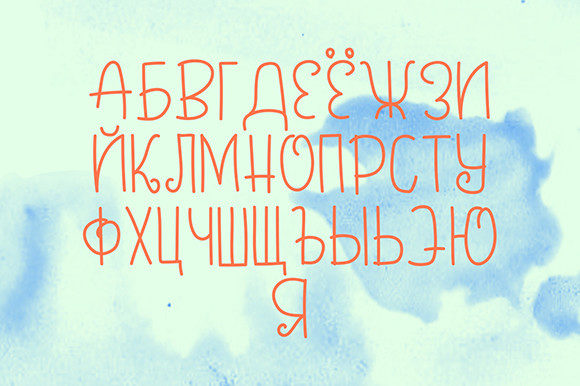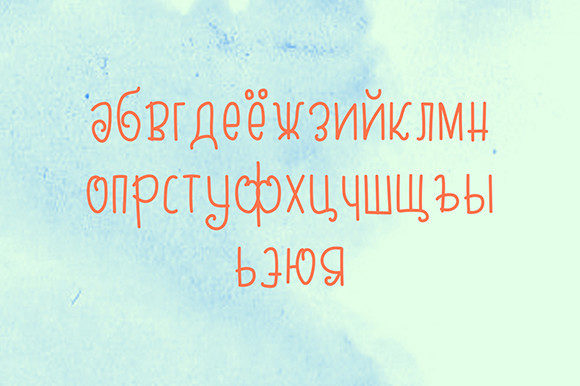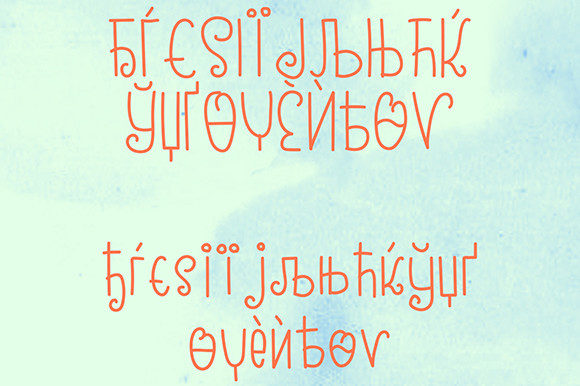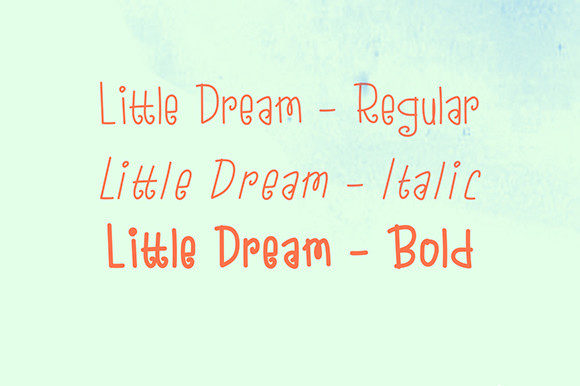
Little Dreams Font
About Little Dreams Font
Little Dreams is a thin and simple handwritten font. This gentle font will look gorgeous on a variety of design ideas. It will add a joyful and romantic touch to each of your projects!